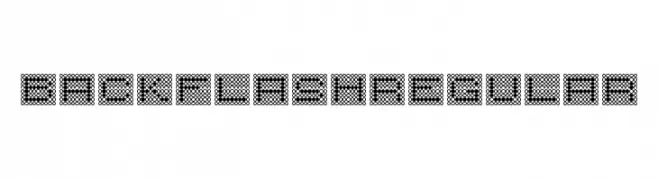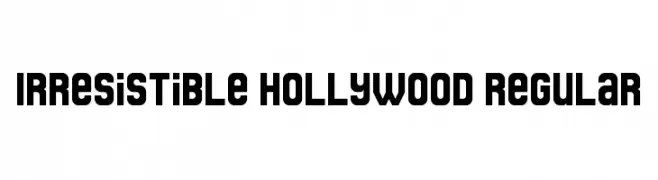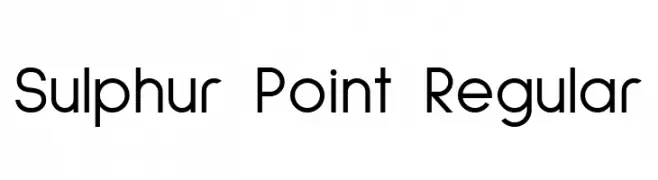
A bold, condensed, and modern geometric font.
A playful, bold font with rounded, bubbly characters.
A playful, interconnected font with continuous loops and curves.
A bold, decorative font with a grid pattern and square outlines.
A bold, pixelated font with a retro arcade game style.
A geometric, modern font with clean lines and rounded edges.
A bold, geometric font with a modern, uniform appearance.
A modern, geometric font with rounded edges and consistent stroke width.
A bold, geometric font with clean lines and a modern aesthetic.